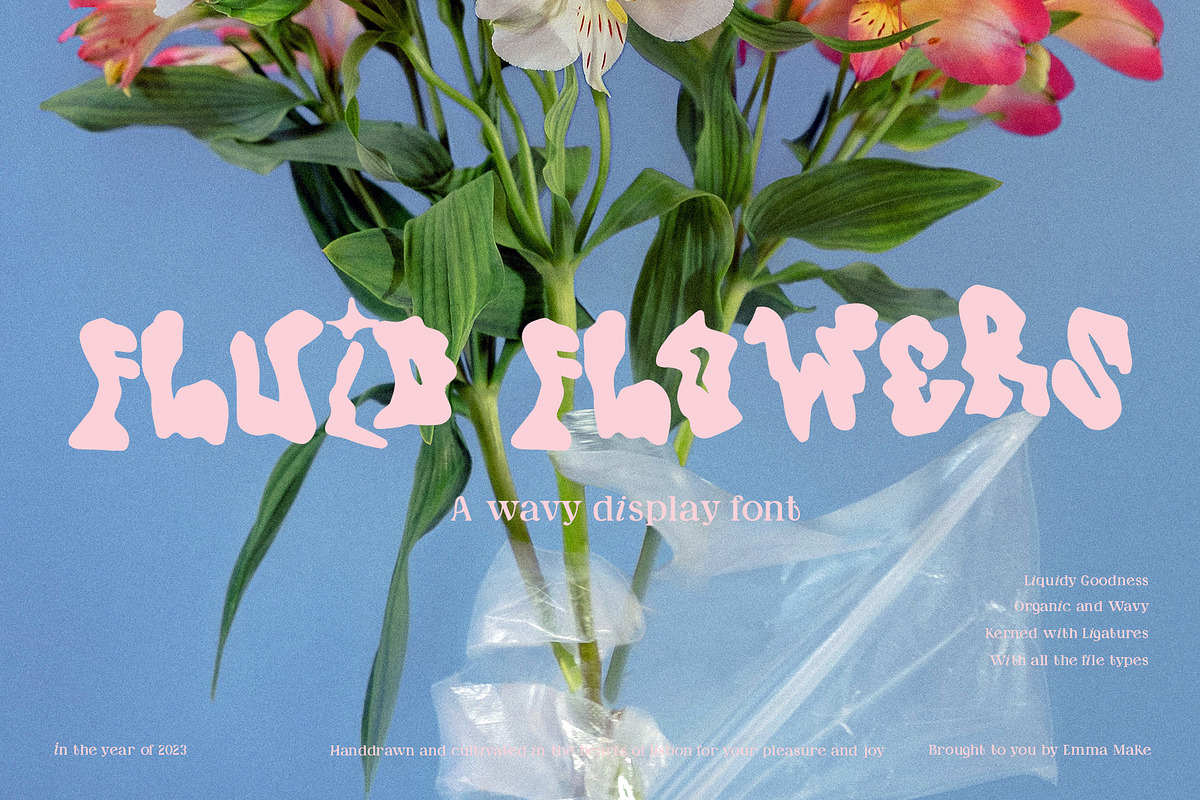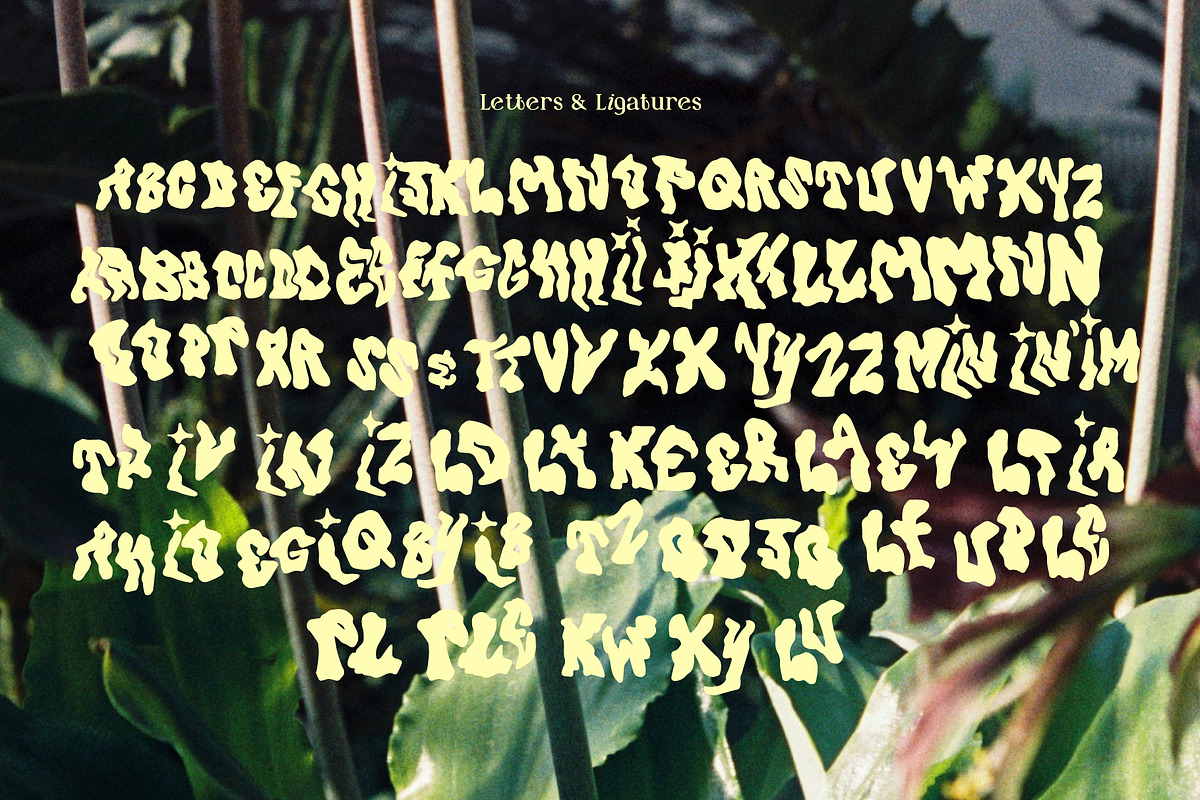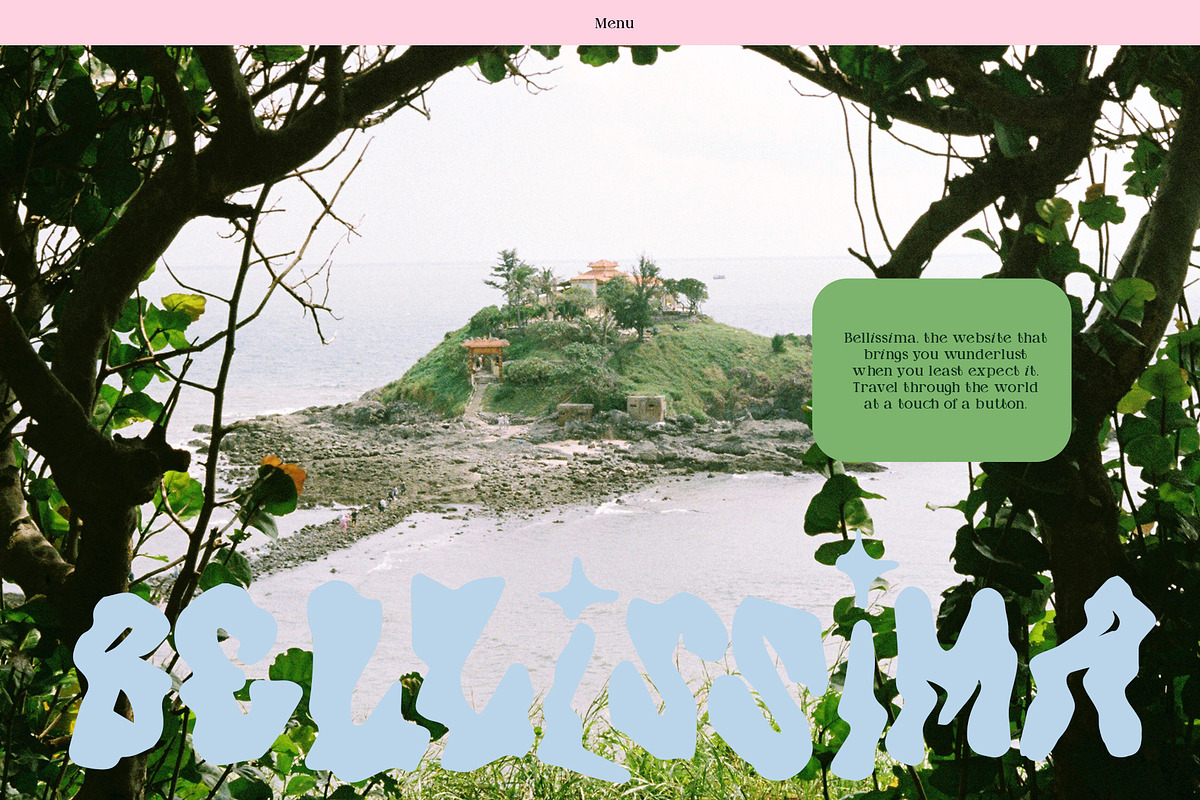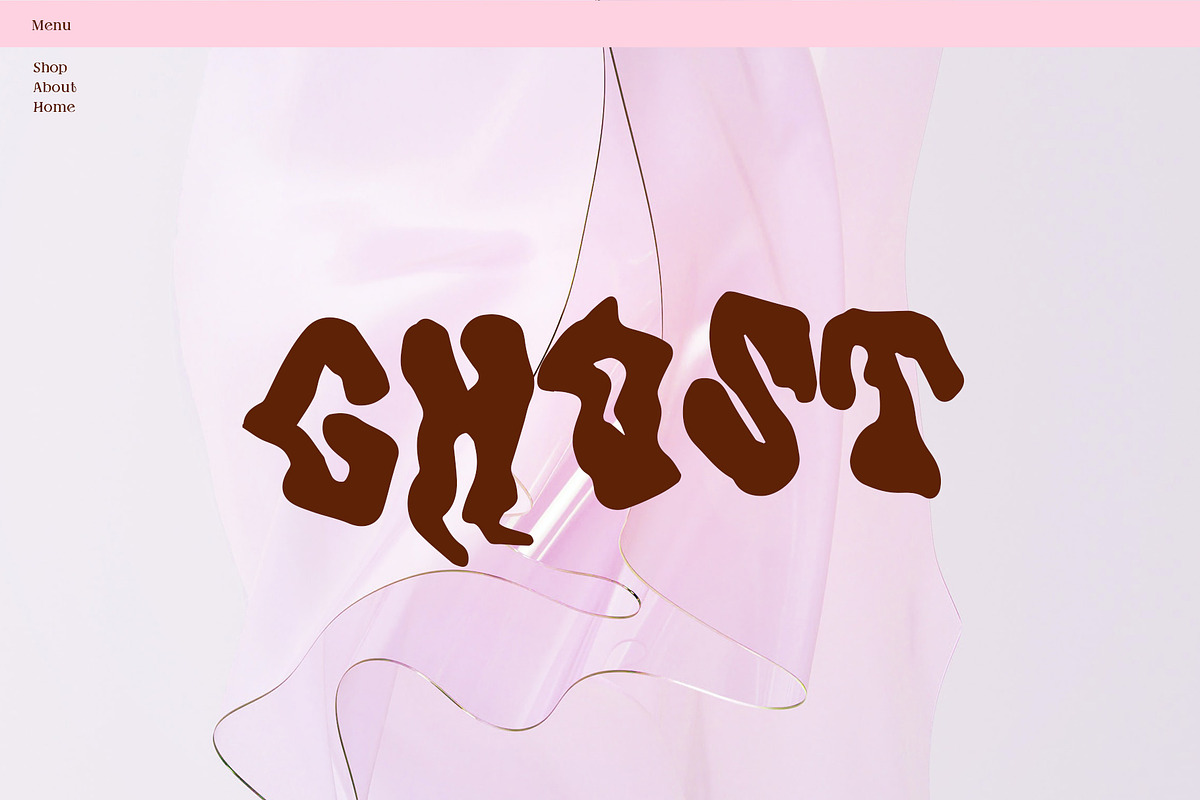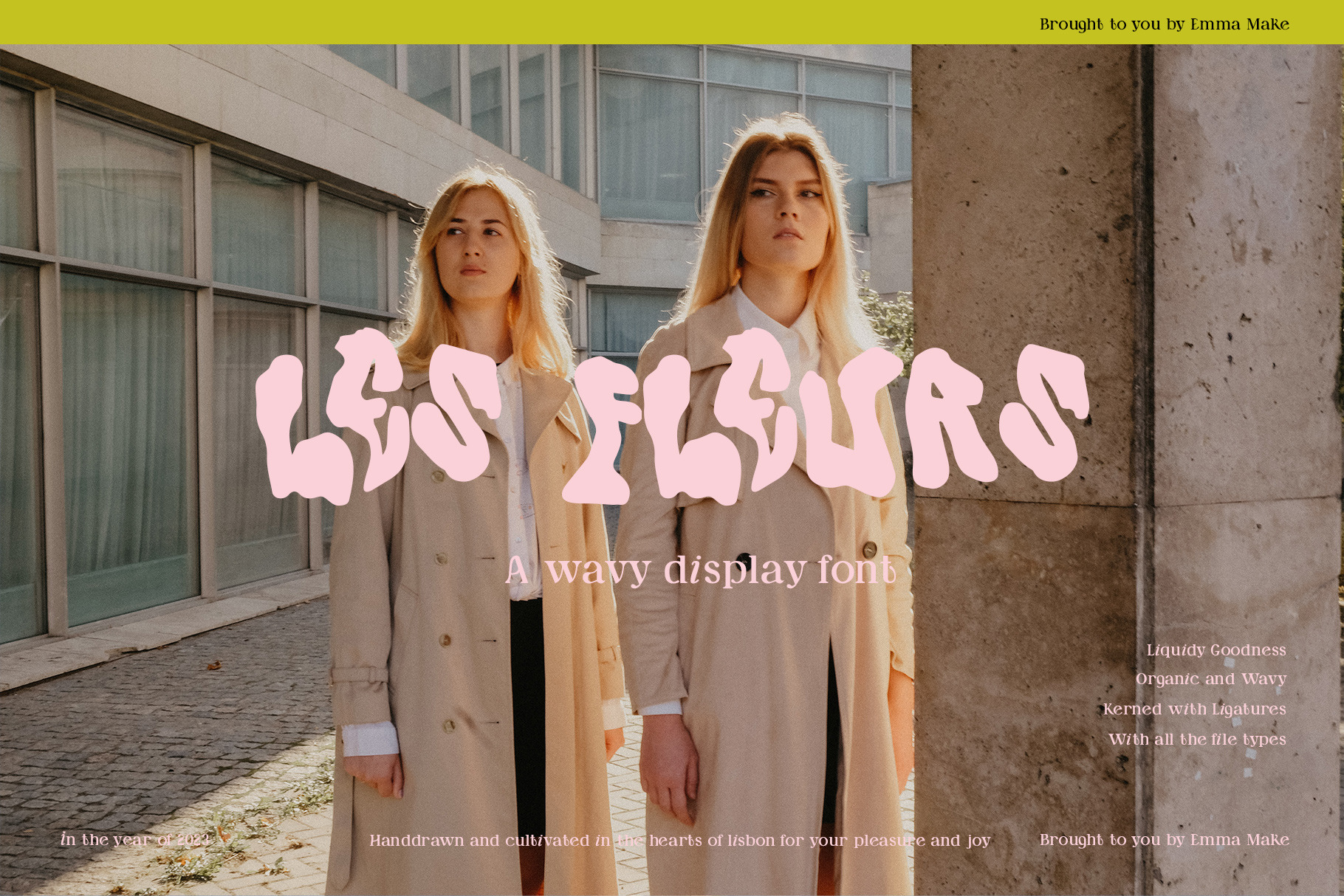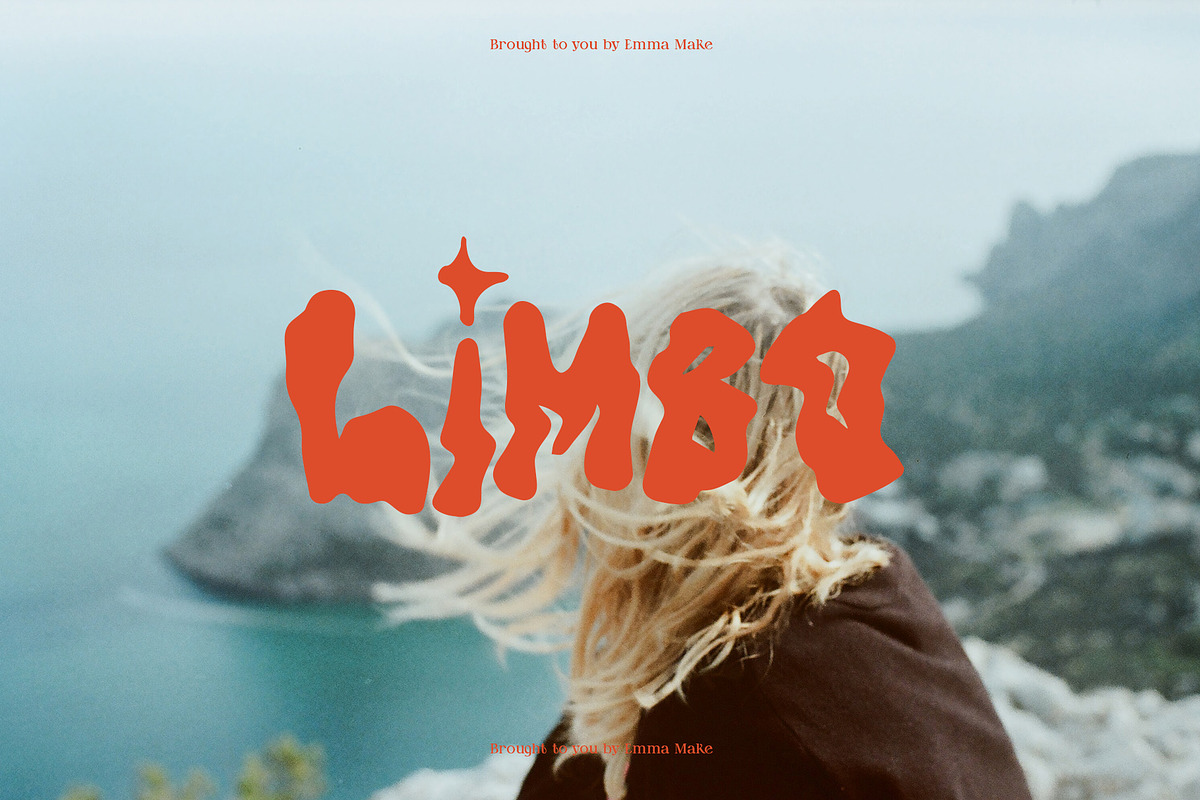
Les Fleurs a Wavy Fluid Font
Les Fleurs is a modern, characterful, fluid font. Express yourself fully. Here I've paired it with Mystic and Achilles font which you can find on my shop.